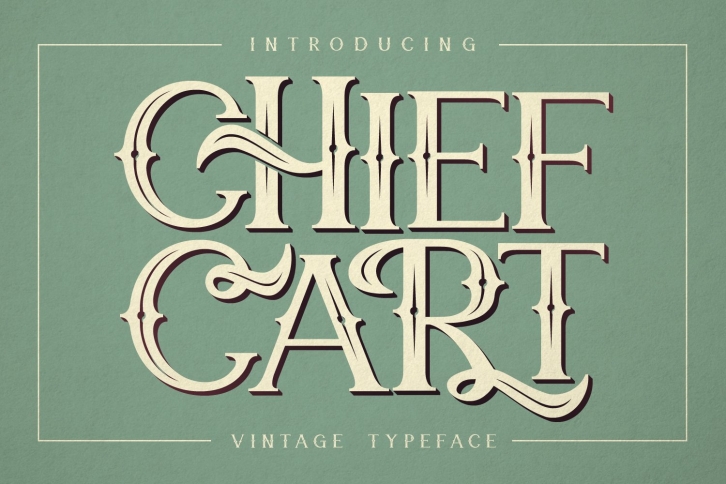
Chief Cart Vintage Typeface is a trendy and unique font with an authentic style. It was designed by Maulana Creative and it's a great choice for creative people who need such a font. It was released on November 20, 2020 and the file size is 17.37 MB. Chief Cart Vintage Typeface will add an organic vibe to any design idea!